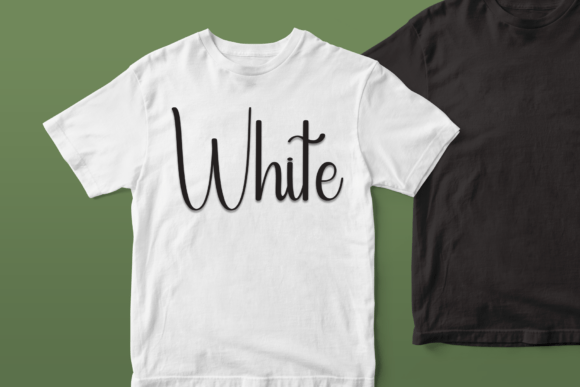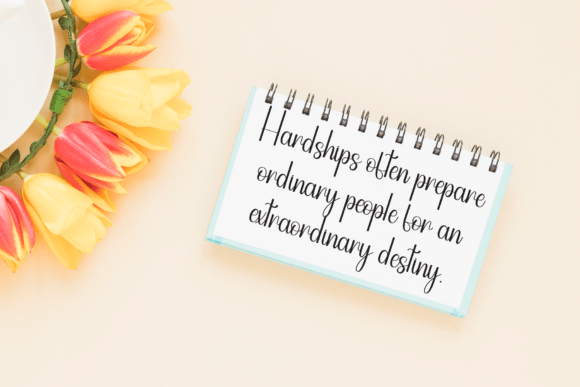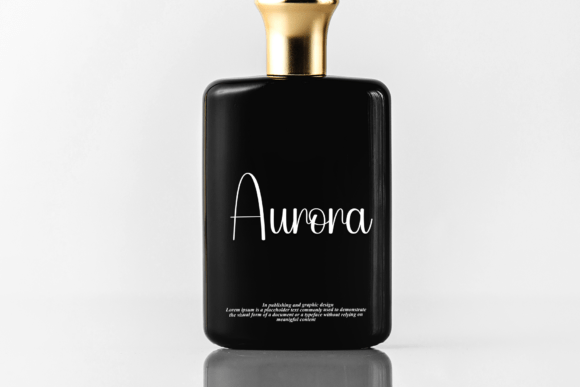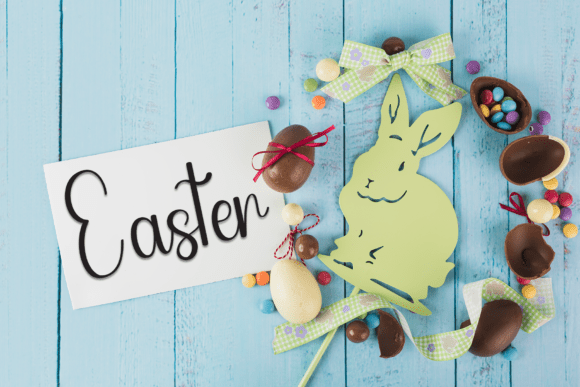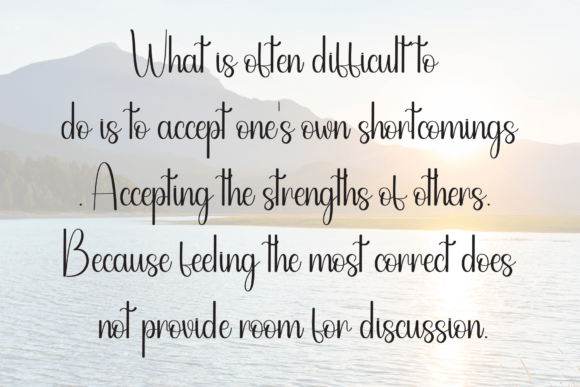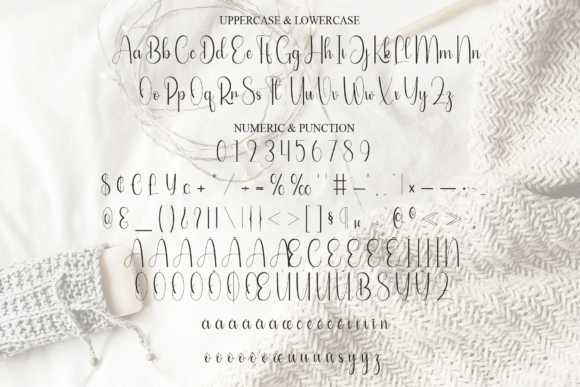
Introducing Handmade Font: Elevate Your Designs with a Touch of Elegance and Whimsy
In the world of typography, few fonts manage to strike a balance between modern sophistication and playful charm. Handmade, a stylish handwritten script font, is one such typeface that effortlessly blends elegance with a dash of whimsy. Its fluid strokes and charming curves bring a personal, human touch to any design, making it an ideal choice for creatives looking to add warmth, sophistication, and creativity to their projects.
The Essence of Handmade Font
Handmade Font is more than just a typeface; it’s an expression of personality and style. Its design is rooted in the art of handwriting, offering a unique and authentic feel that sets it apart from more conventional fonts. Each letter is carefully crafted to convey a sense of fluidity and movement, as if written with a pen or a brush. This gives Handmade its distinctive, hand-crafted look that is both inviting and engaging.
Key Features of Handmade Font
- Modern Elegance: Handmade boasts a contemporary aesthetic that fits well with modern design trends. Its clean lines and balanced proportions make it versatile for a wide range of applications.
- Playful Touch: What sets Handmade apart is its playful charm. The font’s subtle irregularities and soft curves add a touch of whimsy, making it perfect for designs that require a bit of personality.
- Fluid Strokes: The fluidity of Handmade’s strokes gives the font its dynamic and lively feel. This characteristic makes it stand out in any design, adding a sense of motion and energy.
- Charming Curves: The curves in Handmade are meticulously designed to enhance the font’s readability and aesthetic appeal. They contribute to its friendly and approachable vibe, making it suitable for a variety of creative projects.
Use Cases for Handmade Font
Handmade Font’s versatility makes it an excellent choice for various design projects. Here are some of the ideal use cases:
- Logos: For businesses looking to establish a personal brand identity, Handmade offers a unique and memorable typographic solution. Its elegance and charm can help a brand stand out in a crowded market.
- Packaging: Adding a personal touch to product packaging can significantly enhance customer engagement. Handmade Font brings a sense of craftsmanship and care, making products more appealing to potential buyers.
- Invitations: Whether it’s a wedding invitation, a birthday party, or any other event, Handmade Font can add a touch of sophistication and warmth. Its playful yet elegant nature makes it perfect for creating memorable invitations.
Why Choose Handmade Font?
In a digital age where uniformity and consistency are often prioritized, Handmade Font offers a refreshing alternative. By incorporating a handmade, personal element into designs, creatives can produce work that stands out and resonates with their audience on a more personal level.
Moreover, the font’s ease of use and high readability make it accessible for designers of all skill levels. Whether you’re working on a professional project or a personal craft, Handmade Font can elevate your design and add a unique flair.
Handmade Font is a stylish and versatile typeface that brings a much-needed personal touch to the world of design. Its blend of modern elegance and playful charm makes it an invaluable asset for designers and crafters looking to create unique and engaging projects. With its fluid strokes, charming curves, and wide range of applications, Handmade Font is poised to become a favorite among creatives seeking to add warmth, sophistication, and creativity to their work.
Whether you’re designing a logo, crafting a memorable invitation, or developing a brand identity, Handmade Font offers the perfect combination of style, personality, and functionality. Embrace the beauty of handmade typography and discover how this stylish script font can transform your designs.